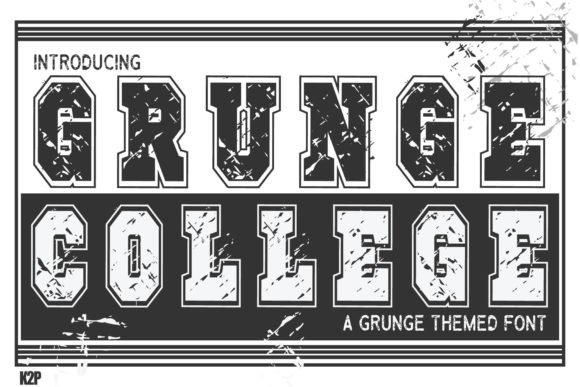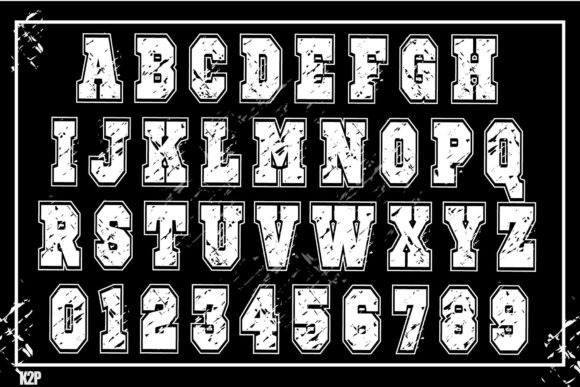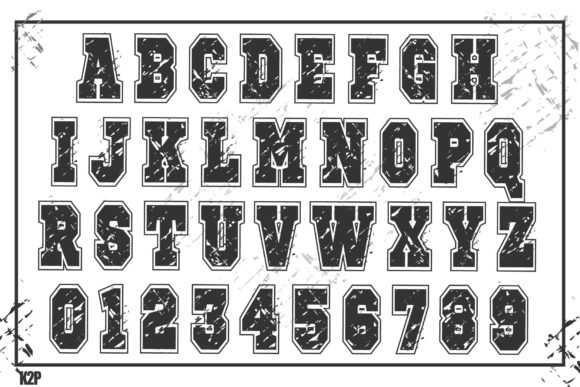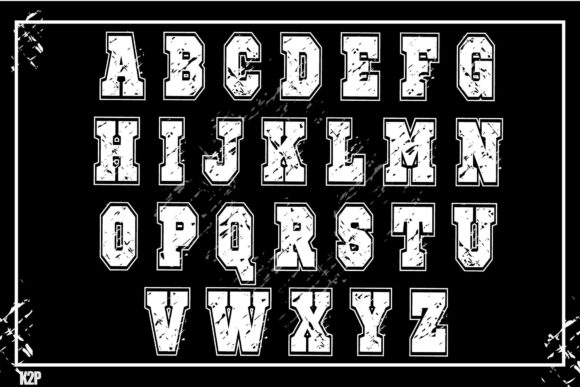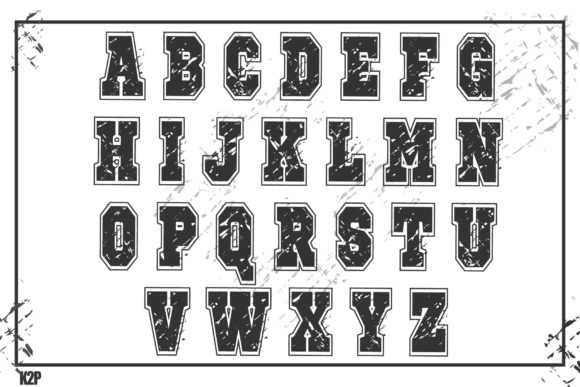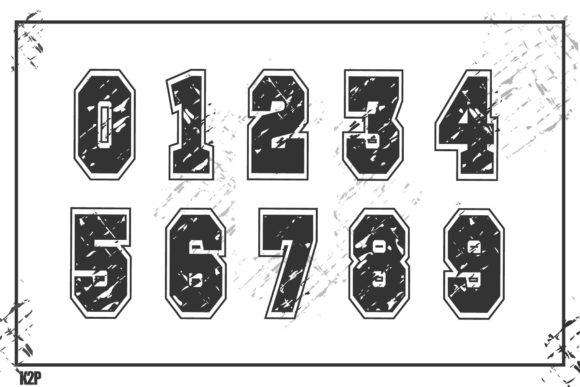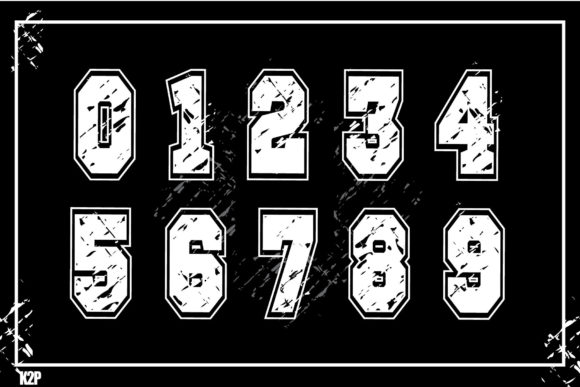
The Birth of a Design Revolution: Grunge College Font
Have you ever been in a brainstorming session with your team, tossing around ideas, and suddenly, it hits you – the perfect font to elevate your design from meh to mesmerizing? That’s exactly what happened when I stumbled upon the Grunge College Font. Its bold, edgy vibe screamed at me to be used for speed and sports-related projects. I knew right then and there that this font was going to take my designs to the next level.
Grunge College Font is a display font that’s as cool as it is versatile. With its assertive style, it’s perfect for designers who want to make a statement. Whether you’re working on a project related to speed, sports, or something entirely different, Grunge College Font is sure to bring an extra layer of excitement to your designs.
Grunge College Font Key Features
- Font Family: Grunge College is a distressed, vintage-inspired font family designed to evoke a sense of nostalgia and grit.
- Character Set: The font family includes a wide range of characters, including uppercase and lowercase letters, numbers, punctuation marks, and special characters.
- Unique Characteristics: Grunge College features a distressed, hand-crafted aesthetic with subtle texture and imperfections, giving it a unique and eye-catching look.
Grunge College Font Review
I recently had the chance to work with the “Grunge College Font” and I must say it’s an interesting choice. ✨ One thing that stands out is its unique aesthetic, which captures the essence of the 90s grunge movement. The font’s distressed texture and worn look give it a rugged, edgy feel that’s perfect for music-inspired or alternative designs.
However, there are some limitations to consider. ⚠️ First, the font can be a bit too rough for some applications. The distortion and wear can make the text difficult to read, especially in smaller sizes or when used for large blocks of text. Additionally, the font’s style can be a bit too over-the-top for some designs, making it feel more like a gimmick than a genuine typographic choice.
Here are a few things to keep in mind when working with the “Grunge College Font”:
- Use it sparingly to avoid overwhelming the design.
- Pair it with clean, simple typography to create contrast.
- Consider using it for headings or titles, where the emphasis on the distressed look can be effective.
Overall, the “Grunge College Font” is a great choice for designers looking to add some edge to their work. With a bit of restraint and careful consideration, it can be a powerful tool in your design arsenal.
The Grunge College font is best used for creative and informal designs. To get the most out of it, try pairing it with distressed textures and colors to create a unique and eye-catching look.
The Grunge College font is commonly used in:
- Music posters and flyers
- Graphic novels and comic books
- Music and art blogs
- Casual social media graphics
Alternatives to Grunge College Font
Great Vibes is a beautiful, handwritten font that is perfect for creative and artistic projects. It is ideal for use in headings, titles, and quotes. This font is more elegant and refined compared to Grunge College Font, which has a more rugged and distressed look.
Comparison: Great Vibes is a more polished and sophisticated alternative to Grunge College Font, making it suitable for projects that require a touch of elegance.